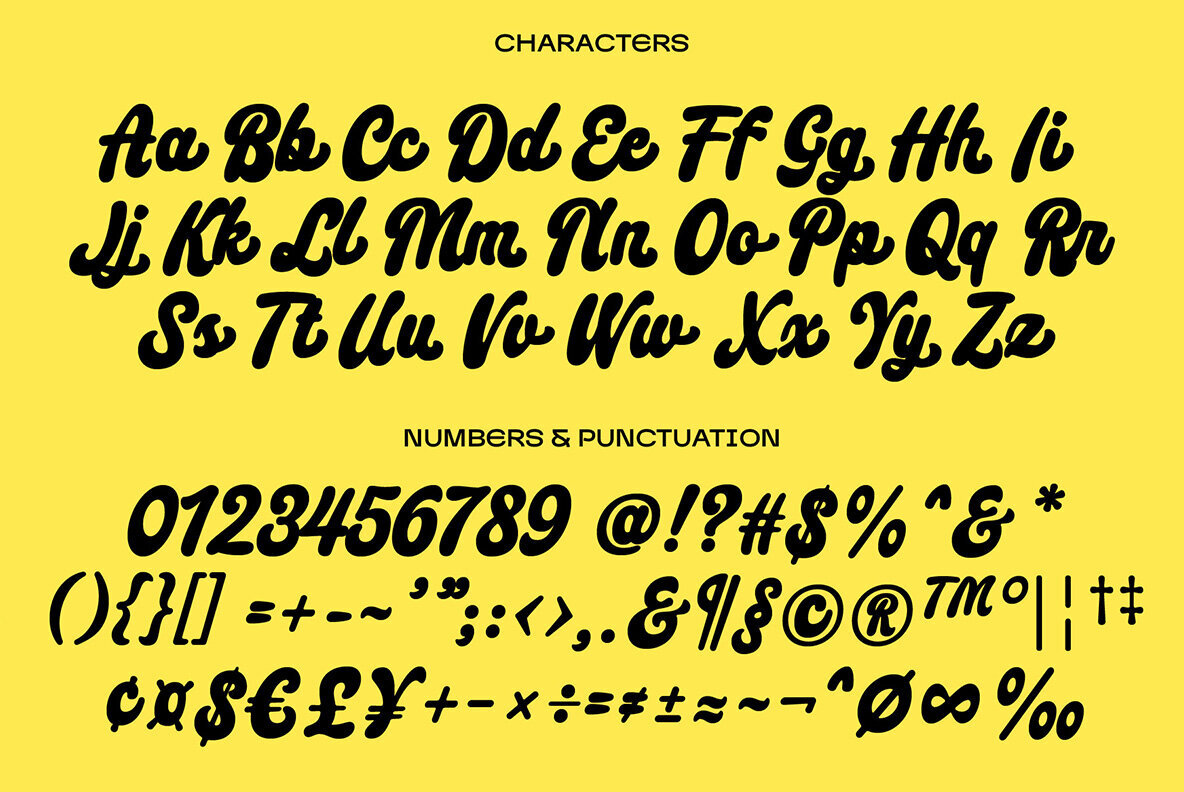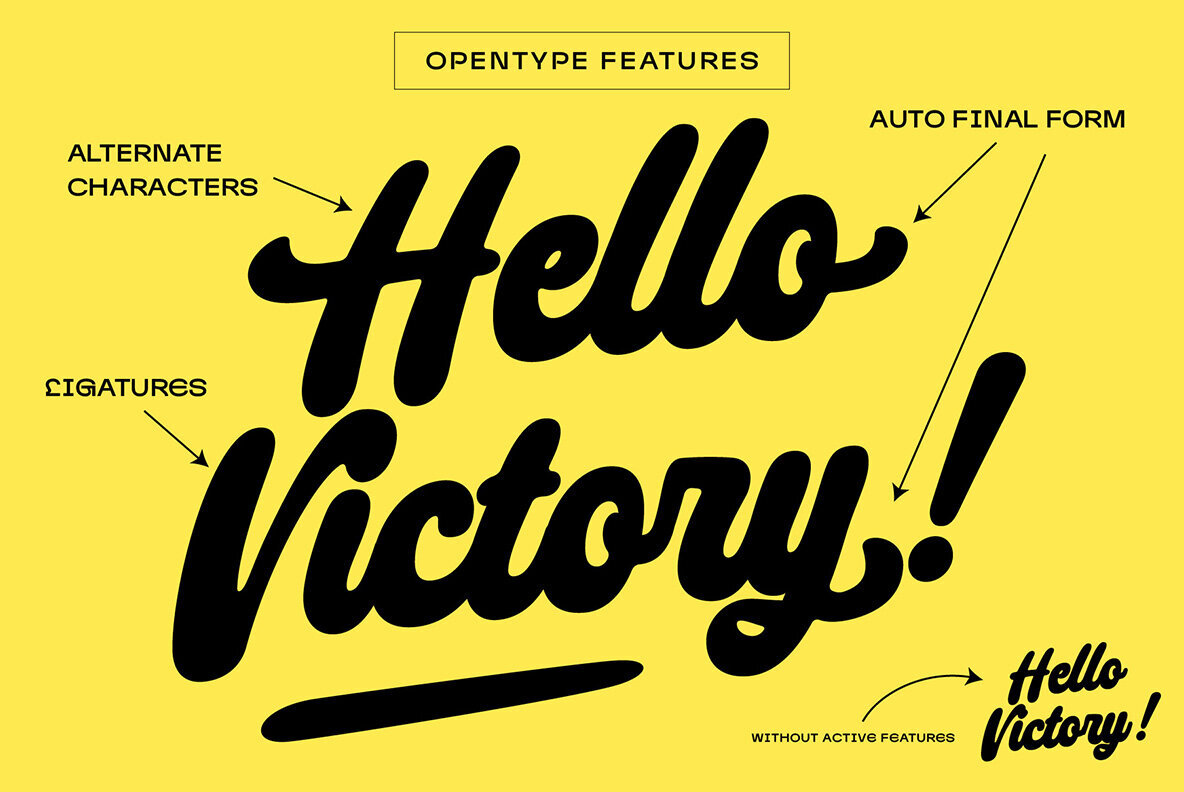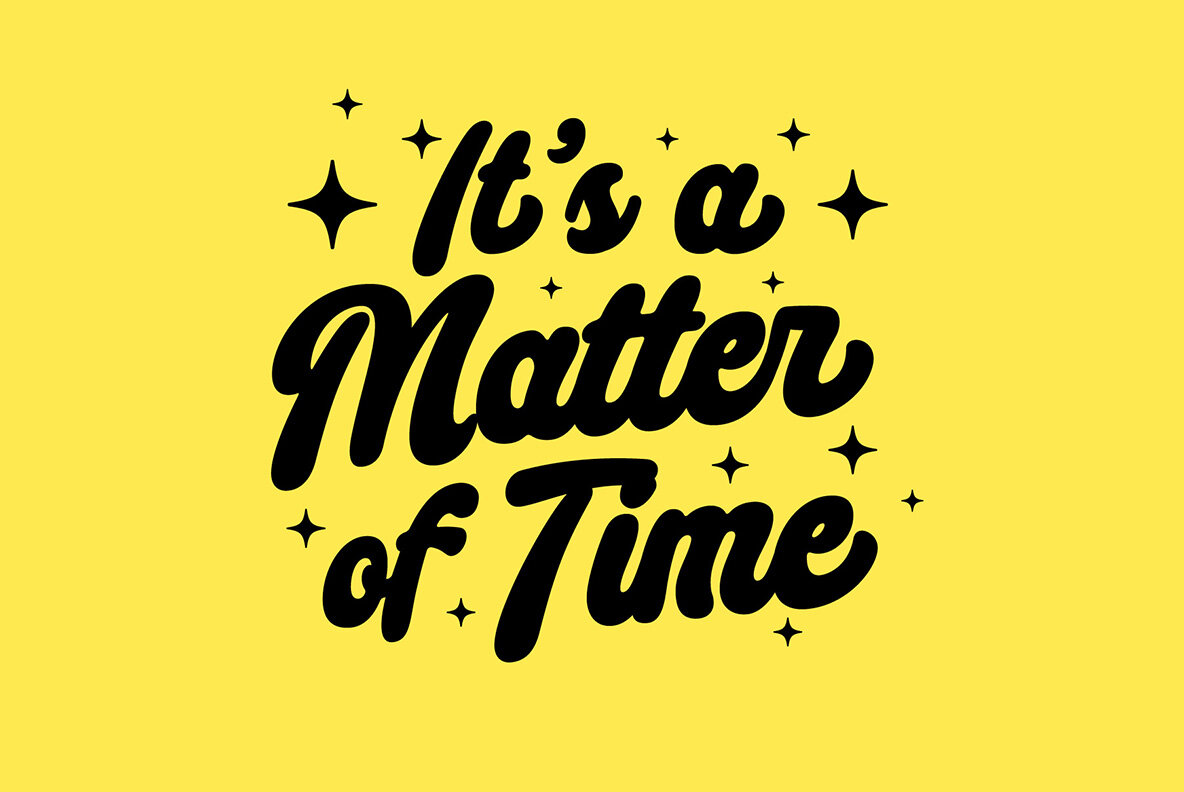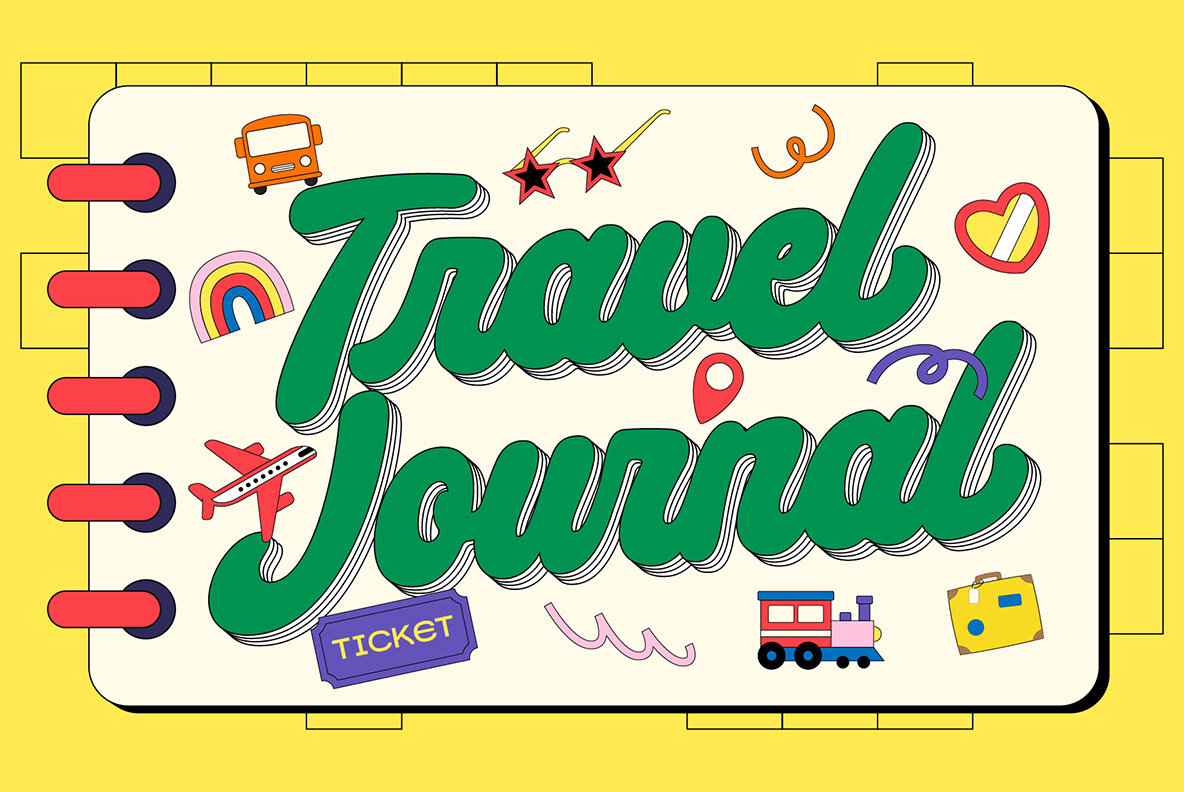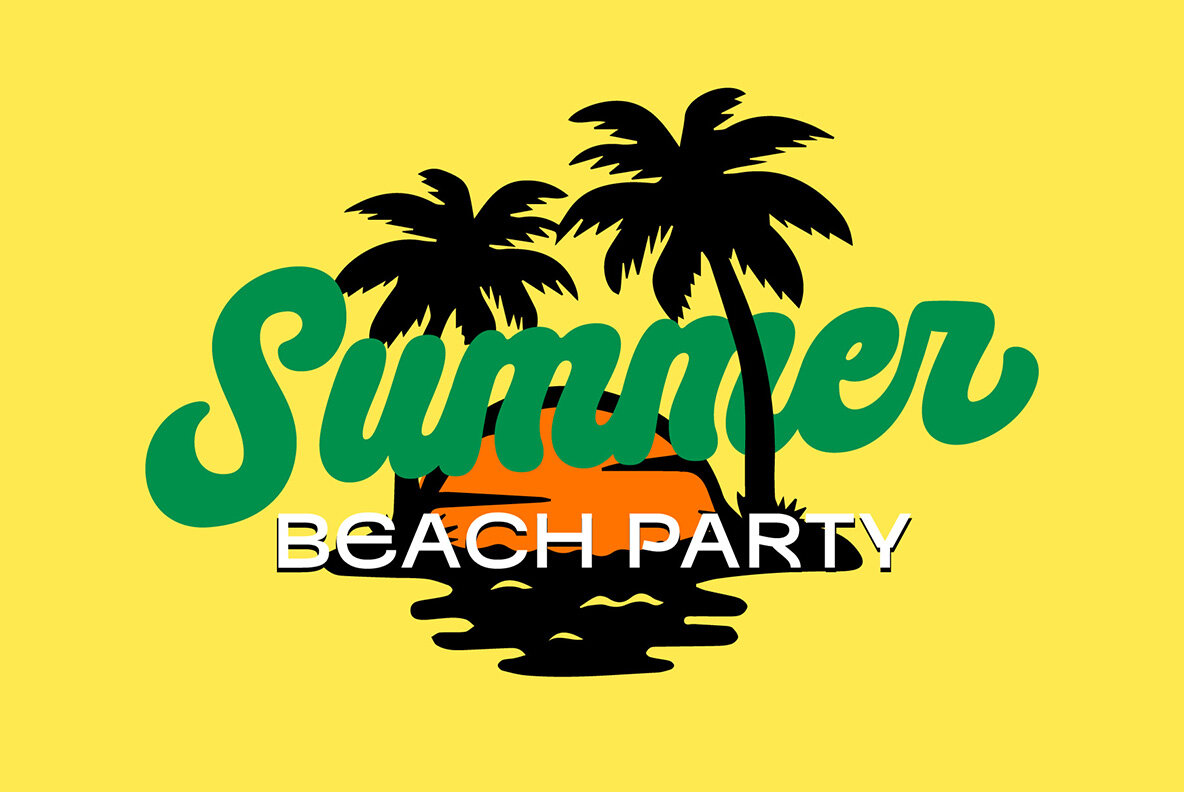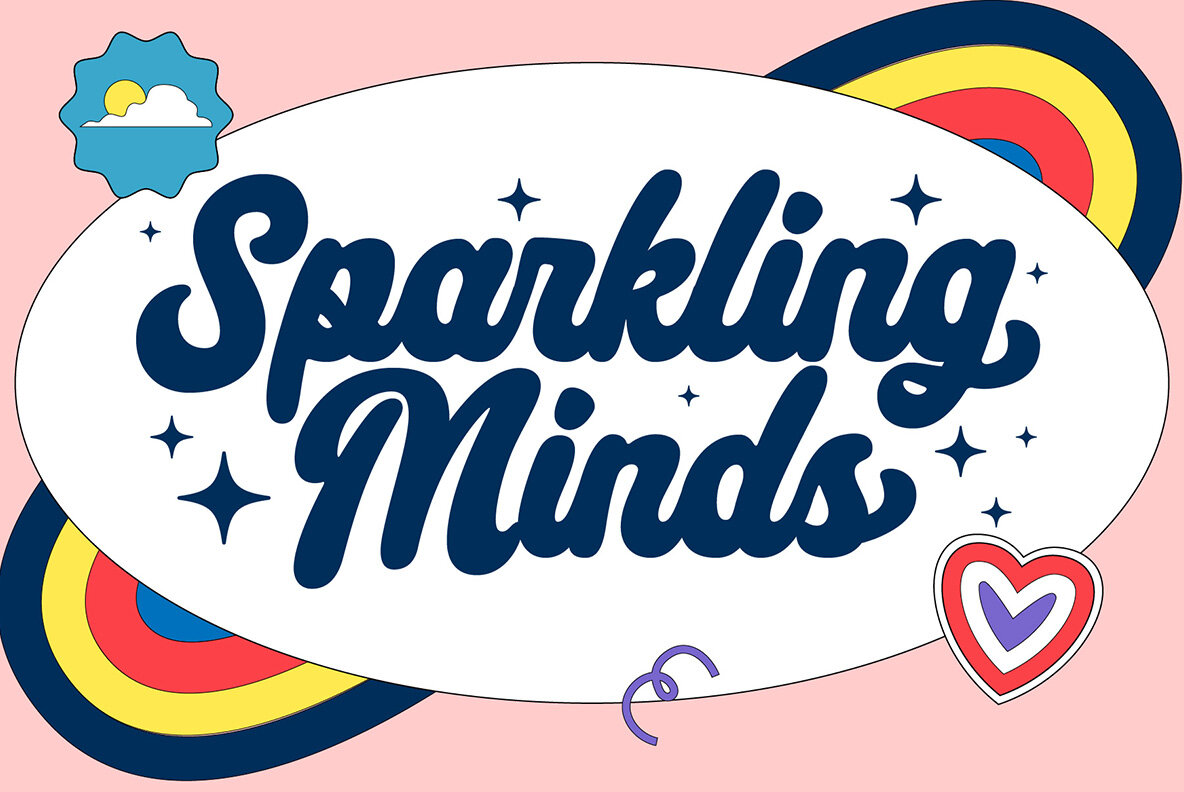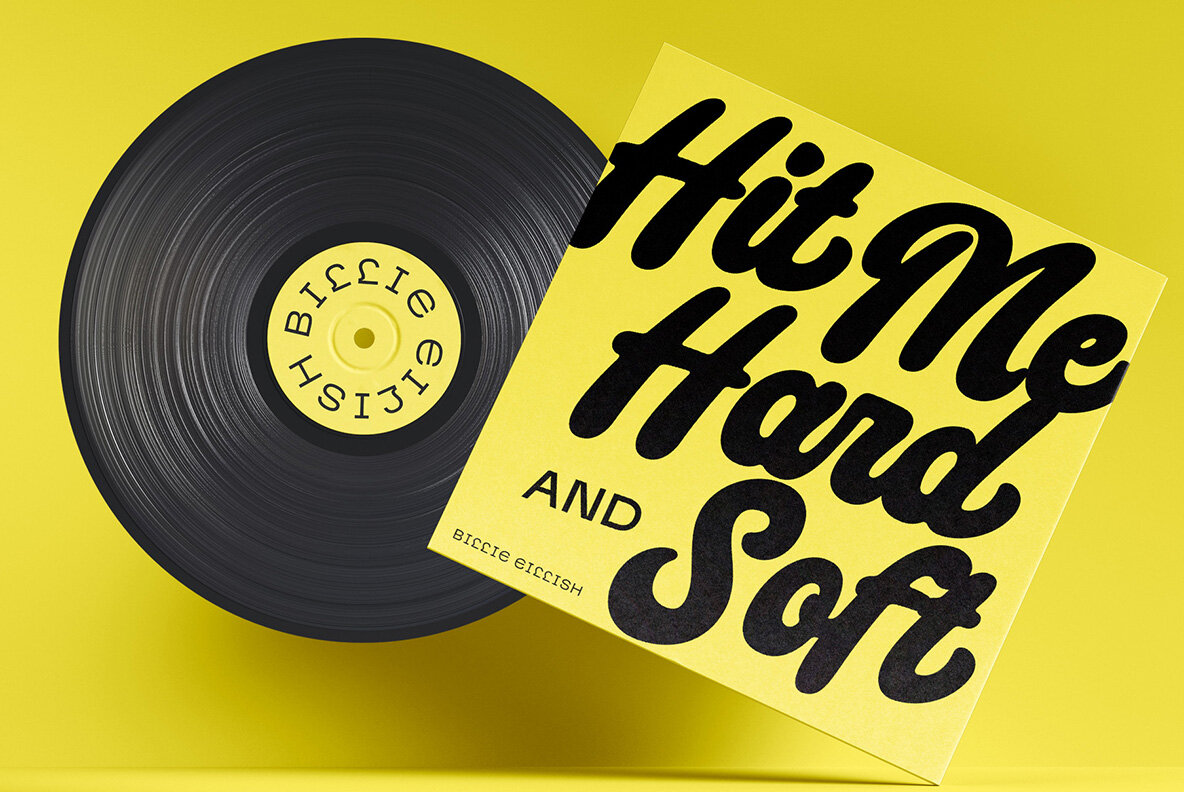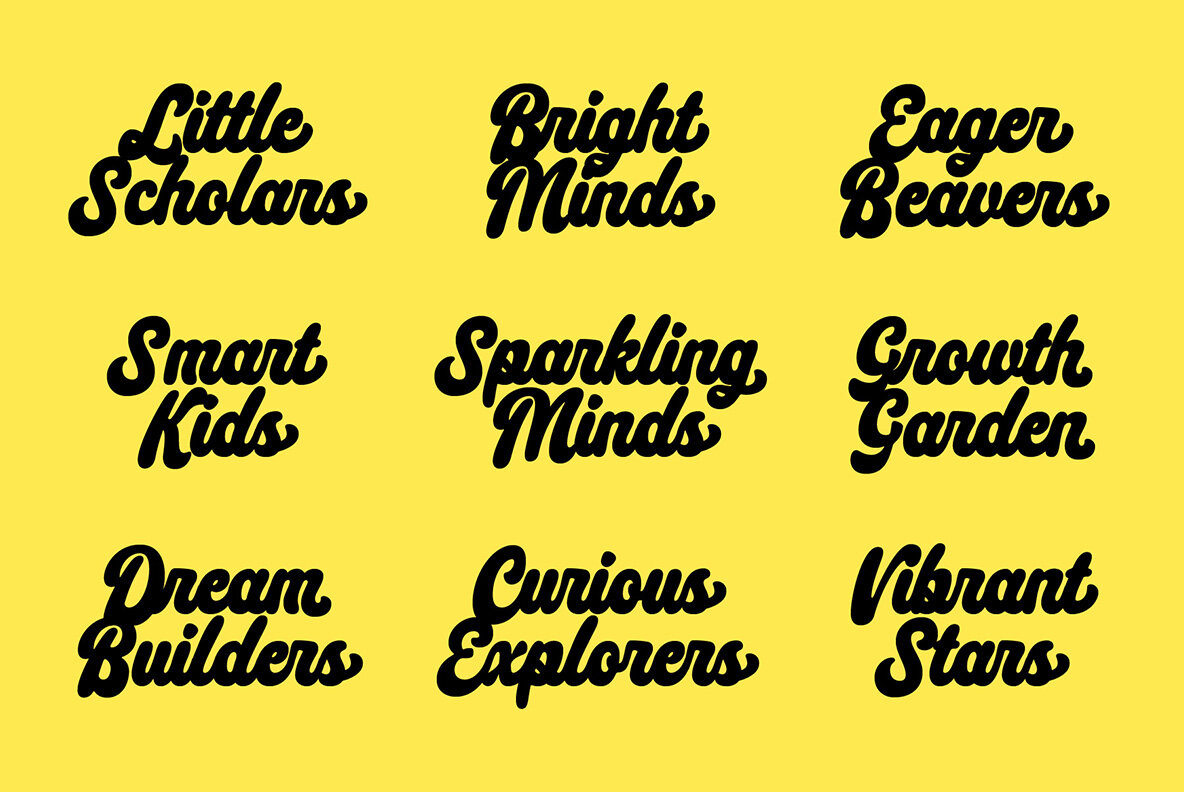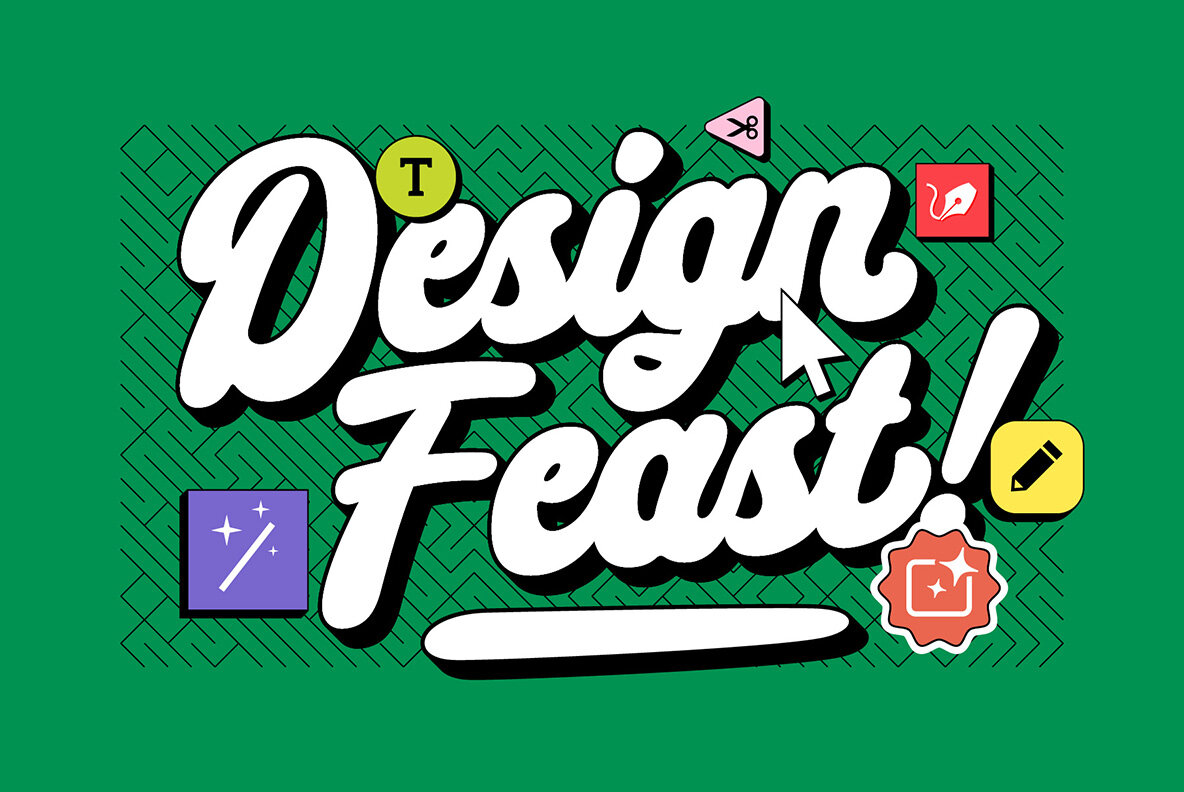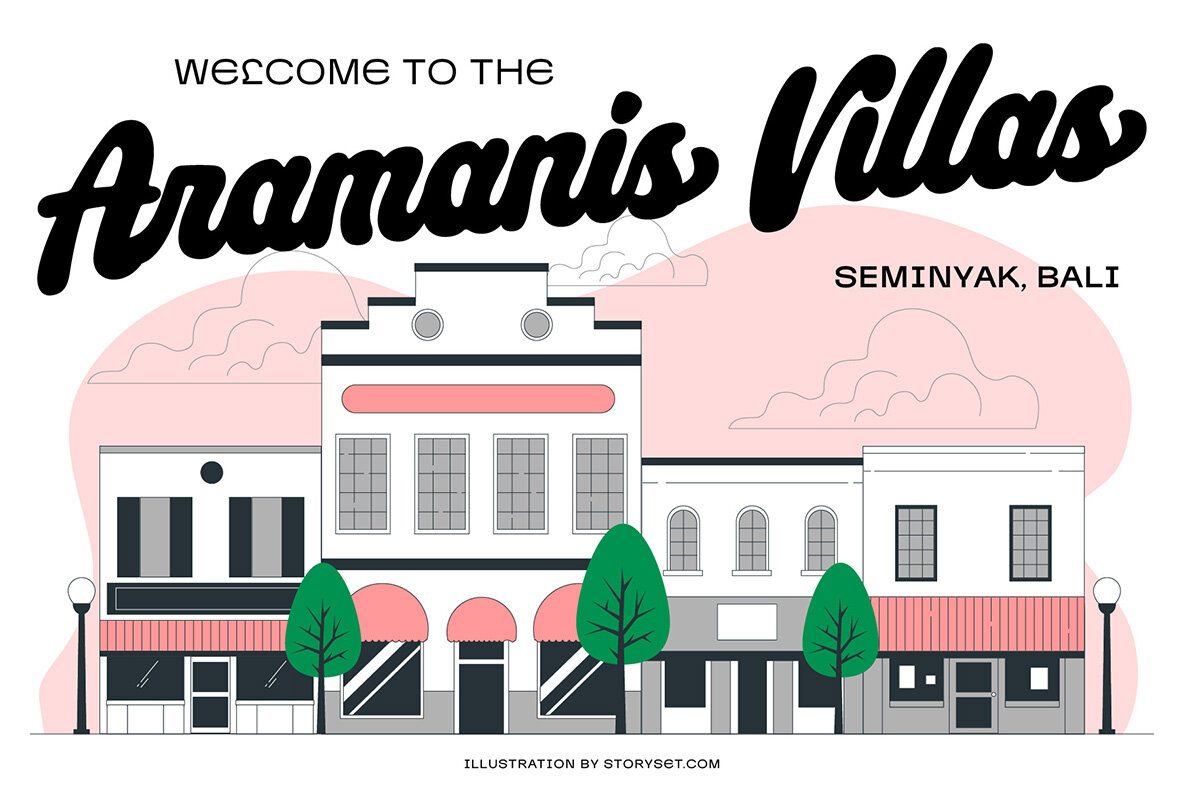
Maino Font
Maino Script
Introducing Maino, where script elegance meets playful charm. This font exudes a delightful blend of softness and boldness, with rounded edges that add a touch of whimsy to any design. Its flawless curves and casual strokes make Maino both inviting and versatile, perfect for projects that demand a cute and approachable vibe. Crafted with creativity in mind, Maino comes fully equipped with OpenType features such as contextual alternates, ligatures, and a variety of alternate characters. This ensures seamless transitions and a natural flow of text, enhancing its handwritten appeal. Whether you're designing for invitations, branding, or social media, Maino supports multilingual characters, making it a global choice for spreading joy through typography. Embrace the charm and versatility of Maino, where every curve tells a story and every letter invites a smile. Ideal for creators who seek to infuse their projects with a touch of personality and effortless elegance.